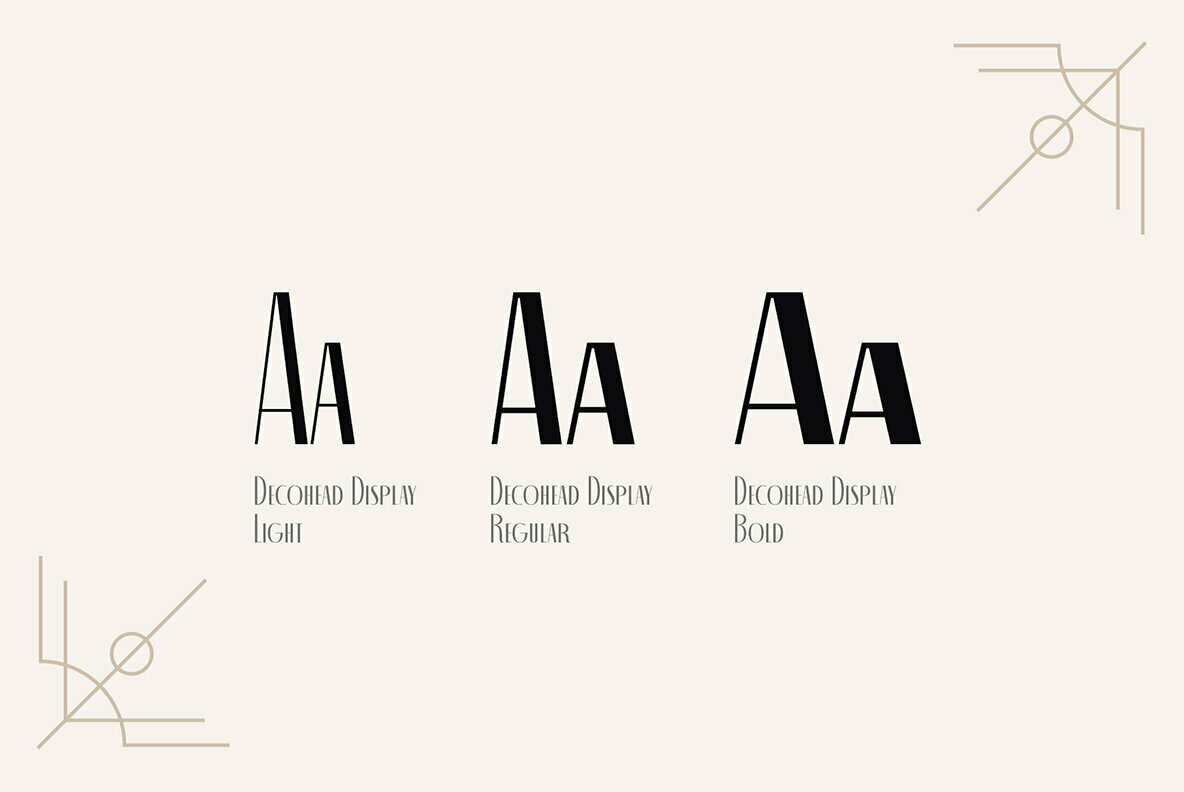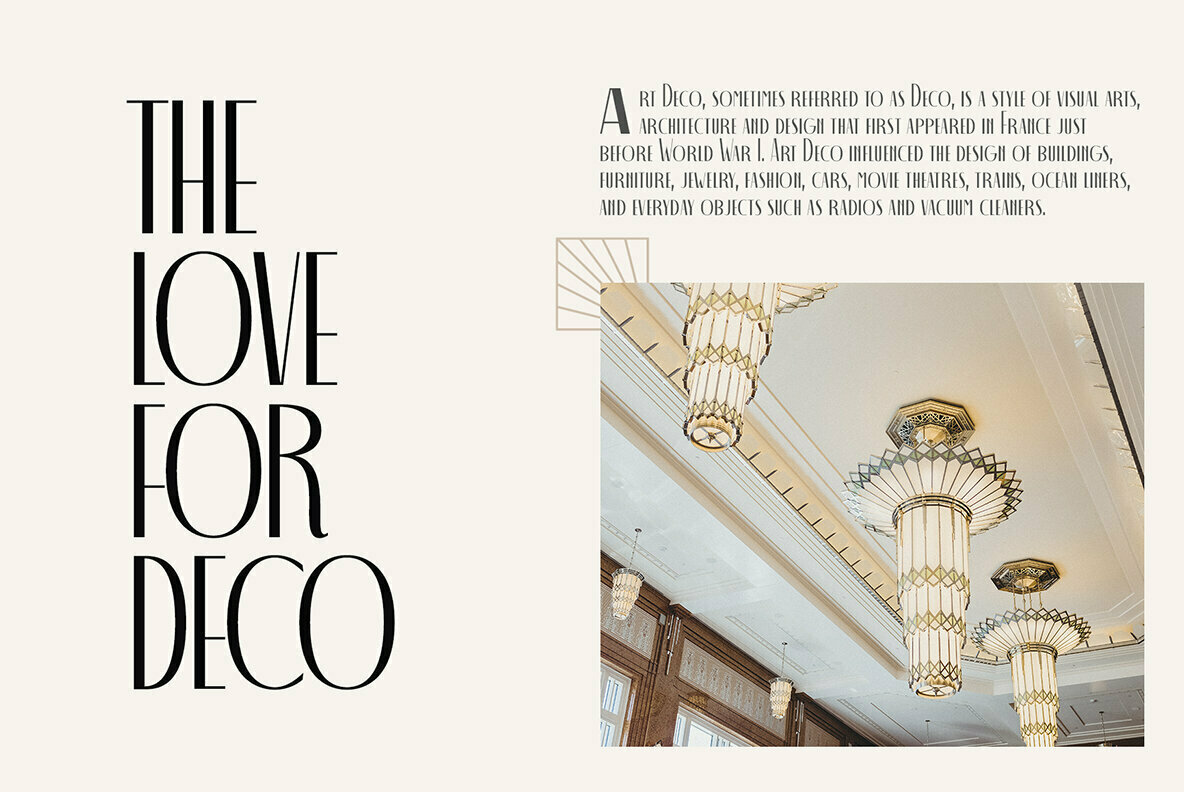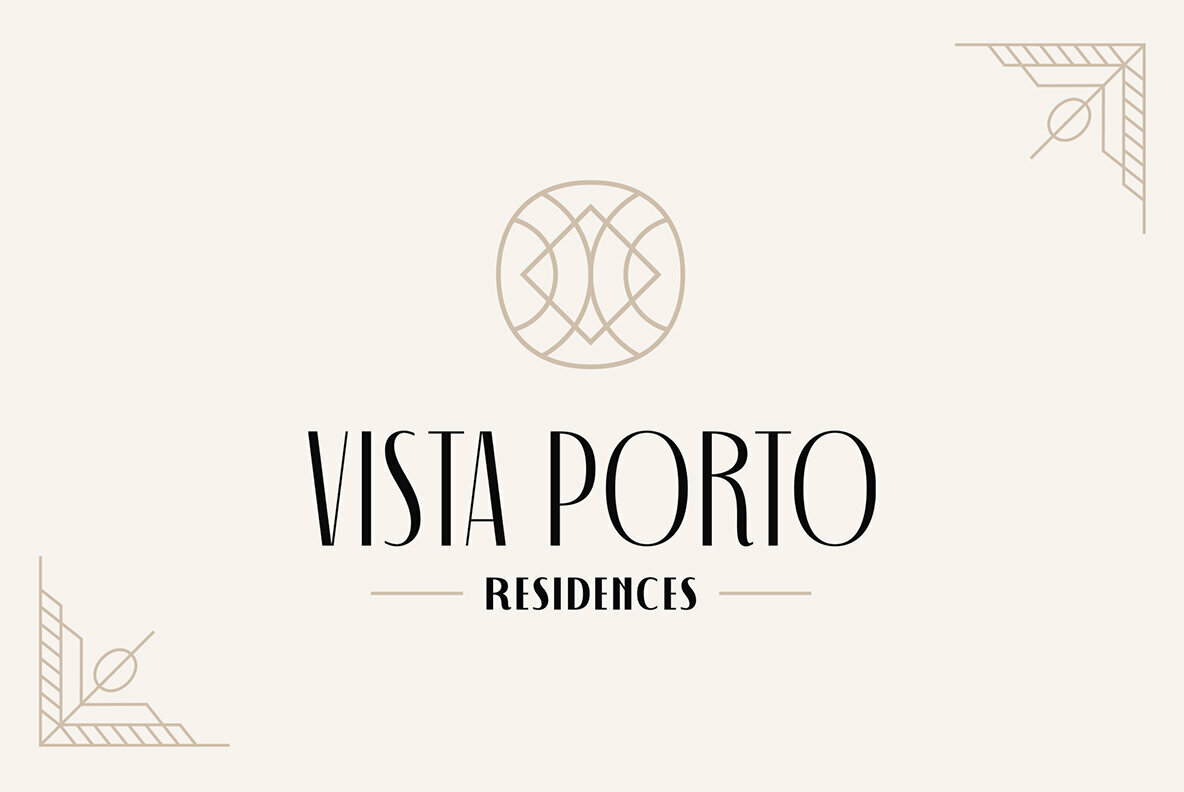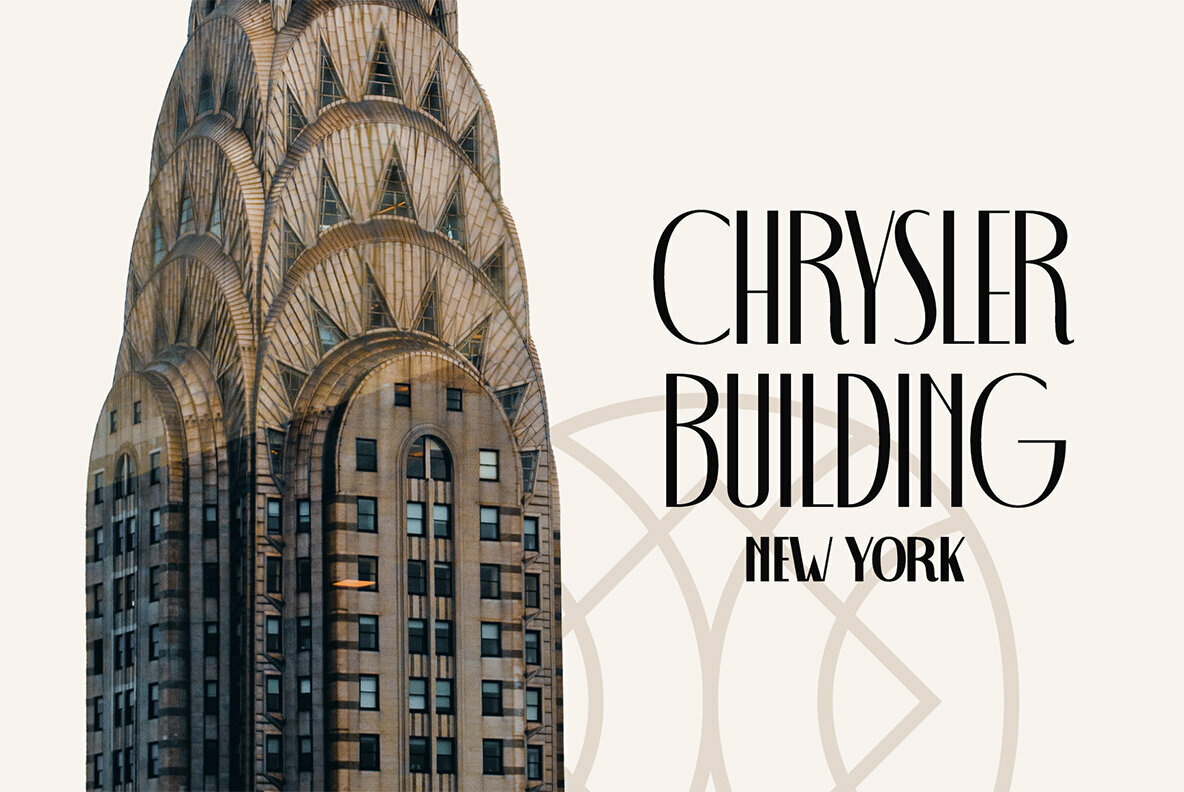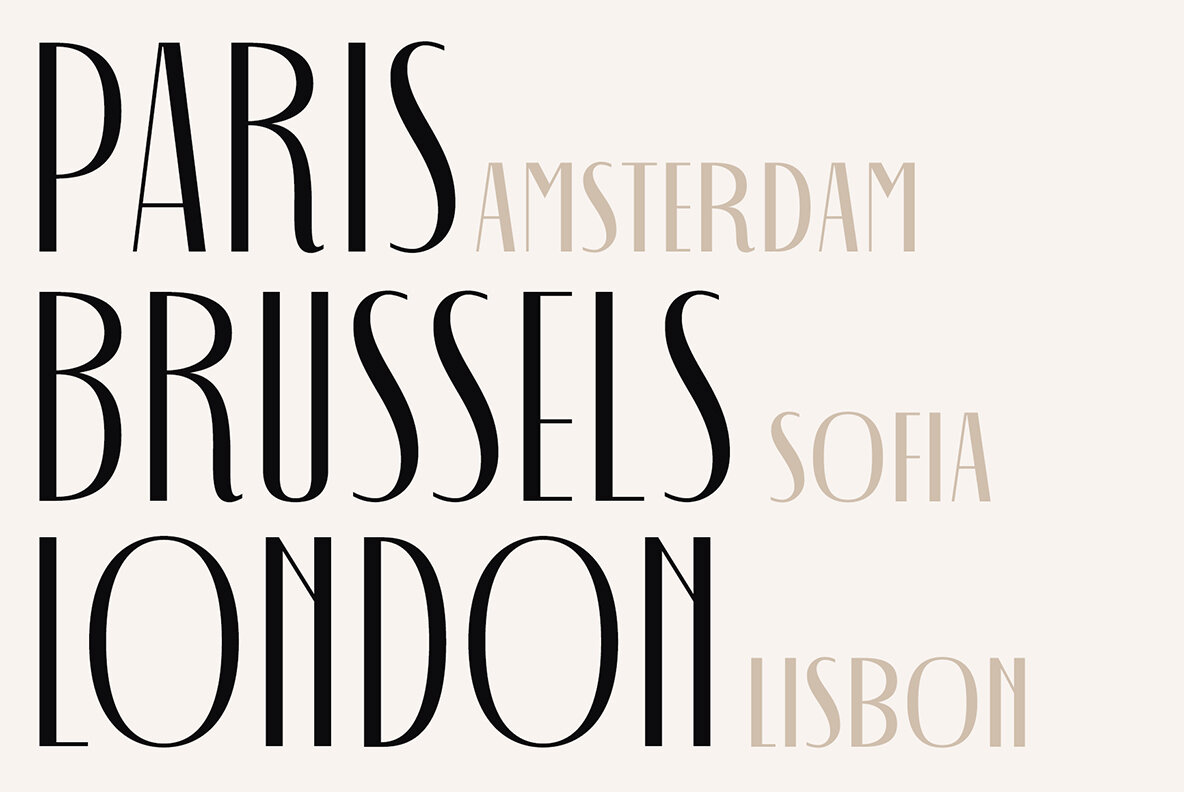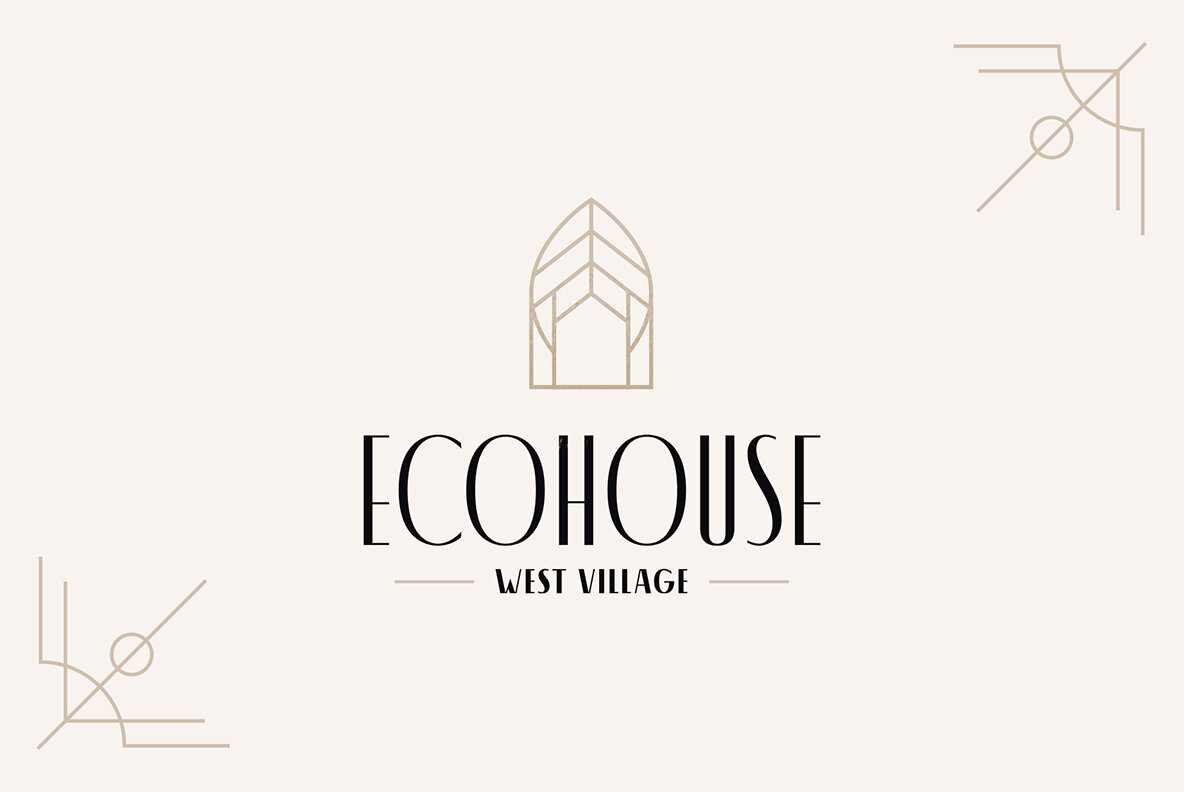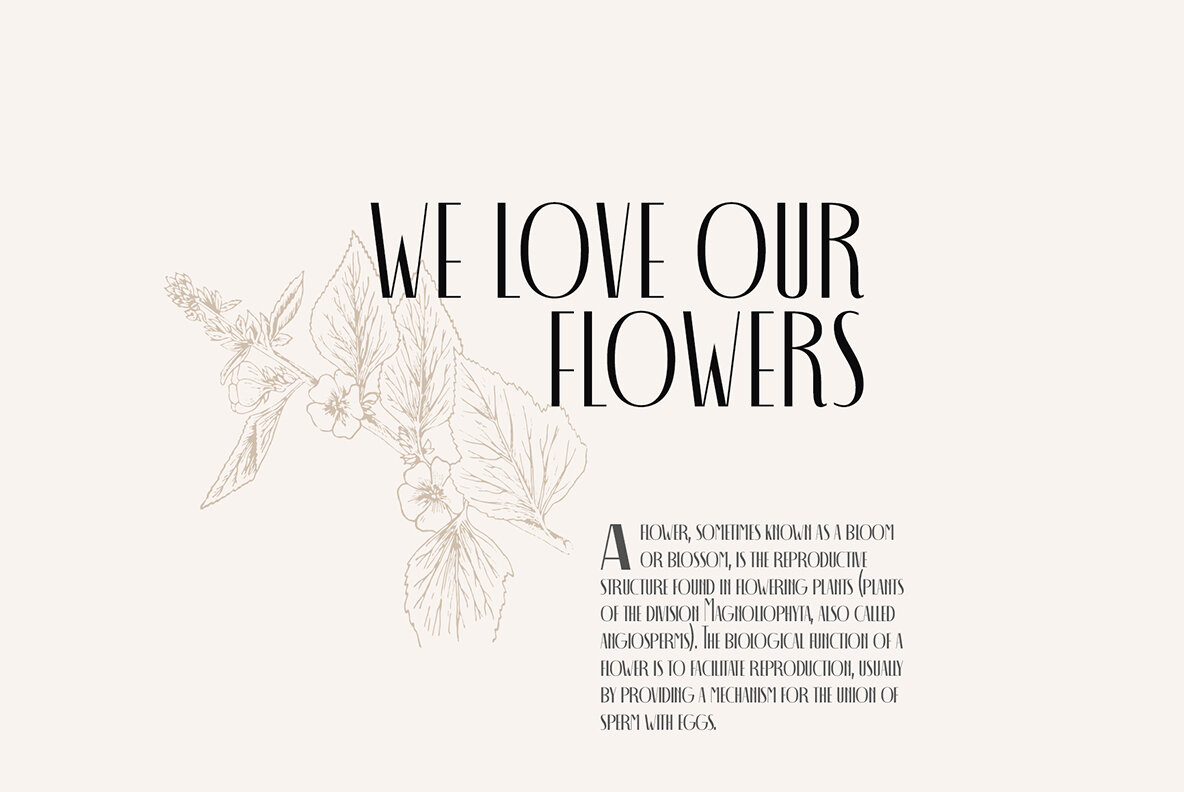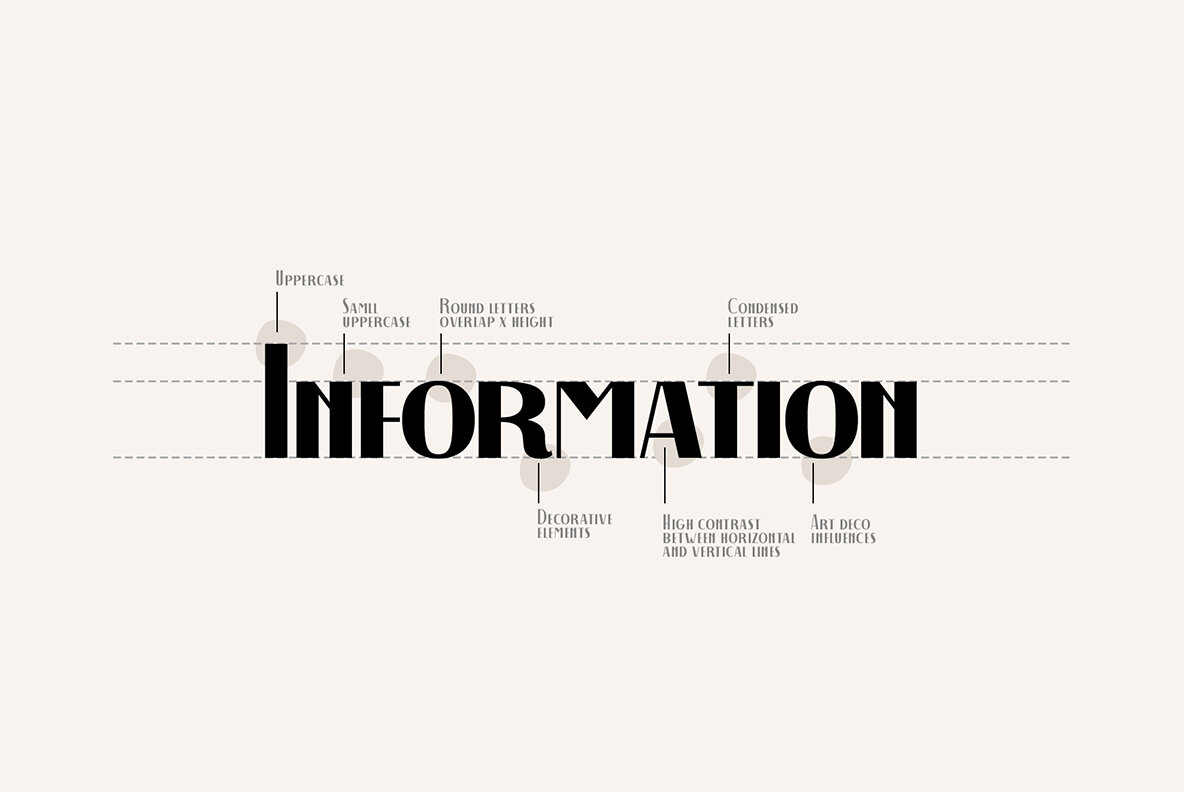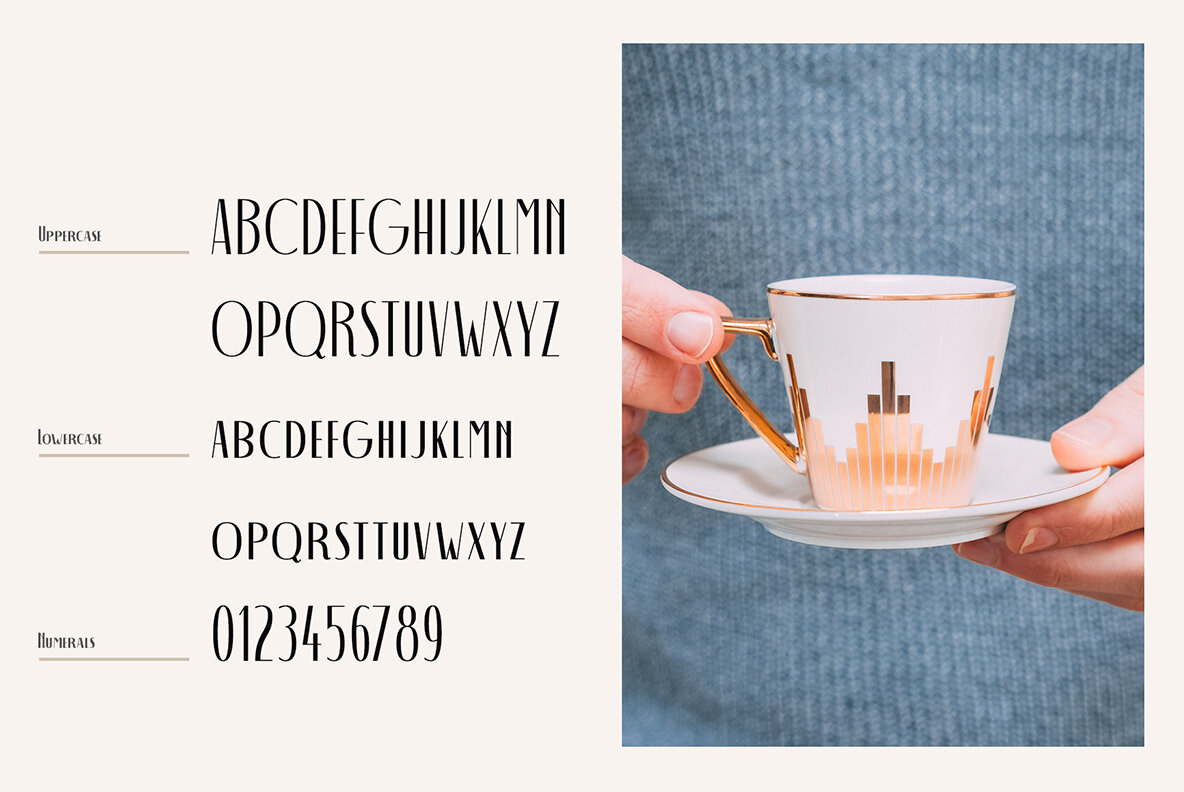
Decohea Display Font
Presenting Decohead display, an elegant art deco-inspired typeface. With its unique and delicate touch, this font can add a sophisticated twist to any design.
Decohead has a neat appearance that feels modern but at the same time, its decorative accents set it apart, maintaining a subtle yet exquisite overall look. Decohead has three weights, uppercase, and lower uppercase characters, and standard latin script support with numerals. You can use Decohead for almost any design project that requires a glamorous, decorative whisper. Get Decohead today and be creative!
*standard latin script language support
*upper and lower uppercase font